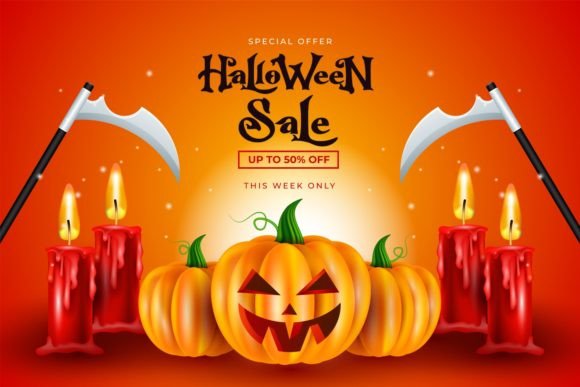
HalloWitchZ Font
HalloWitchZ is an incredibly unique and interesting display font. Add this font to your creative Halloween themed ideas and notice how it will make them stand out!